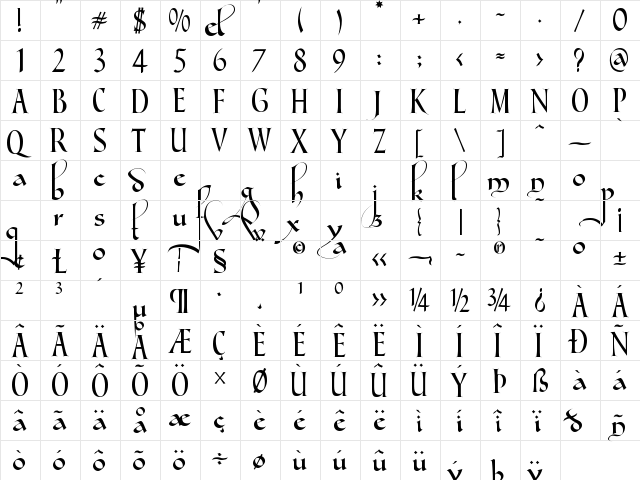
Gondola SD - Swash Regular
| Foundry | Steve Deffeyes |
Design Context for Gondola SD - Swash Typeface
Gondola SD - Swash brings a calligraphic fluidity to the page — its connecting strokes and expressive curves give it an unmistakably human quality.